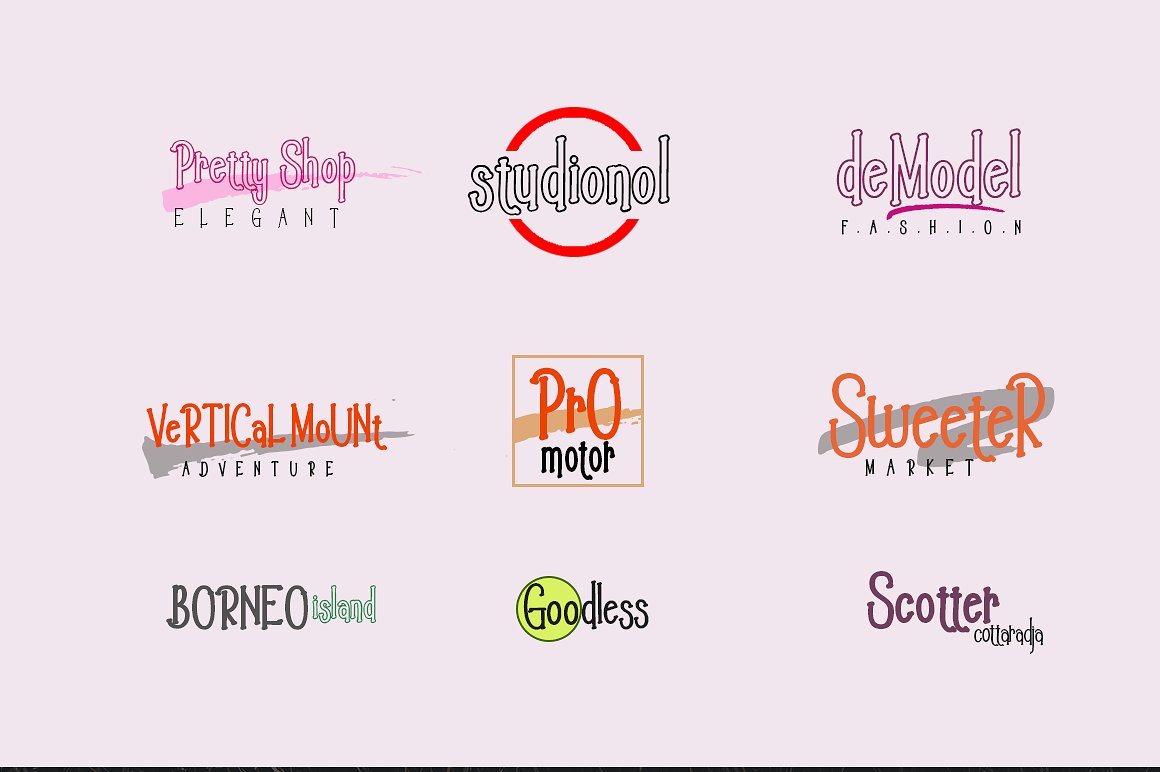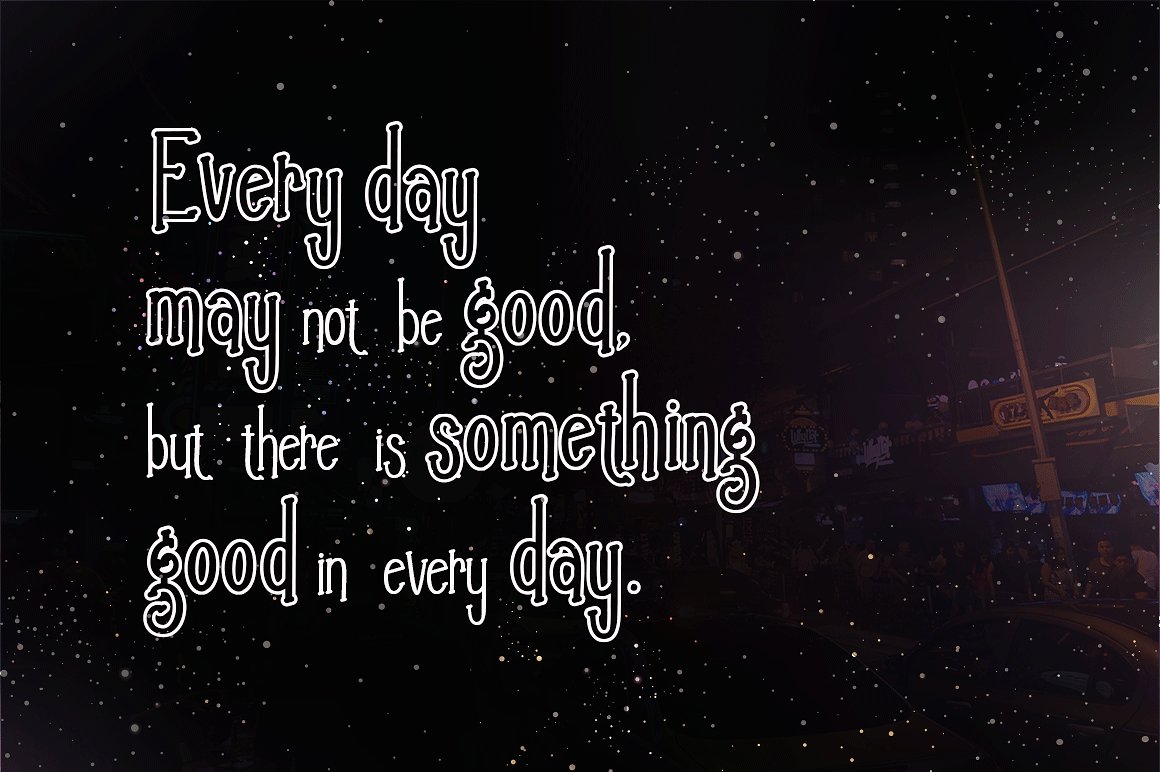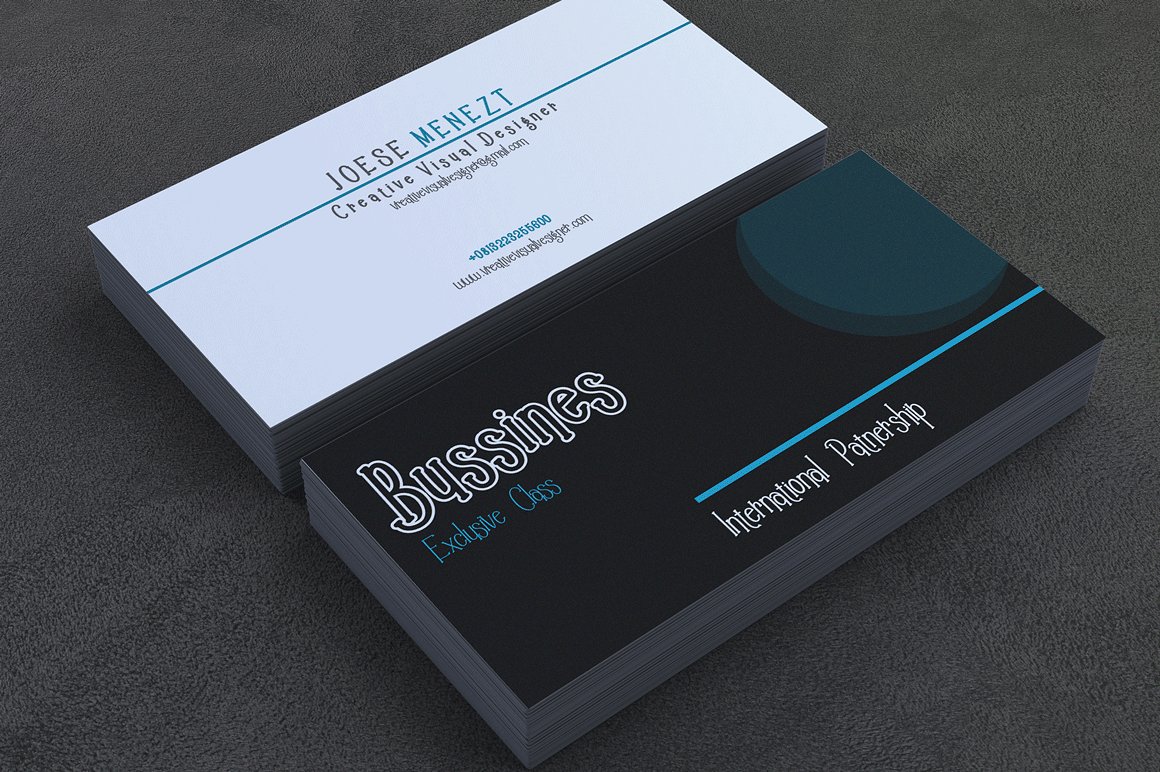
The Rhythm of the Countryside
Imagine yourself driving down a winding country road on a crisp autumn morning, the leaves rustling beneath your tires, the warm sun peeking through the trees. The air is alive with the sweet scent of blooming wildflowers and the gentle hum of a distant stream. It’s moments like these that spark creativity and inspire us to bring the beauty of the countryside to life.
For designers, capturing that effortless charm can be a challenge. That’s where Country Font comes in – a sleek and refined serif font that effortlessly evokes the feeling of a tranquil countryside escape. This versatile font is perfect for a wide range of projects, from rustic wedding invitations to elegant magazine layouts.
Country Font Key Features
- Unique Characteristic: Country Font features a unique, hand-drawn design that gives it a rustic and charming feel, making it ideal for use in country-themed designs, packaging, and branding.
- Kerning and Ligatures: Country Font includes advanced kerning and ligature features that ensure smooth, even spacing and a professional look in typesetting and typesetting applications.
Country Font Review
Country Font is a charming serif typeface that brings a touch of rustic charm to any design project. It works well for creating a welcoming atmosphere in logos, signage, and branding materials. ✨ The font’s subtle imperfections and irregularities add a sense of handmade character that can be particularly effective in country-themed designs.
One of Country Font’s strongest suits is its legibility, making it suitable for both body text and headlines. The font’s robust x-height and generous letter spacing ensure that the text remains clear and easy to read, even at smaller sizes. ✨ Additionally, Country Font’s compatibility with a wide range of languages is a significant advantage for designers working on international projects.
However, there are some limitations to consider. ⚠️ Country Font’s design is quite distinct and may not be the best choice for projects requiring a more modern or sleek aesthetic. Additionally, the font’s irregularities can sometimes be distracting, particularly in longer blocks of text. ⚠️ Furthermore, the font’s lack of italic and bold weights can limit its versatility in certain design situations.
In conclusion, Country Font is a unique and charming typeface that can add a lot of character to your designs. While it may not be suitable for every project, its strengths in legibility and cultural compatibility make it a great choice for designers looking to create a warm and welcoming atmosphere.
Key Features:
- Charming rustic character
- Legible in both body text and headlines
- Robust x-height and generous letter spacing
- Compatible with a wide range of languages
- Limited italic and bold weights
Practical Application Guide for Country Font
Tips for Getting the Most Out of Country Font
Country Font is a versatile font that can be used for a variety of purposes. Here are some tips for getting the most out of it:
- Use it for rustic or vintage-themed designs
- Pair it with other distressed or hand-drawn fonts for a unique look
- Use it for titles or headings to add a touch of country charm
Country Font is commonly used for:
- Outdoor-themed designs (e.g. camping, hiking, etc.)
- Rustic or vintage-themed designs